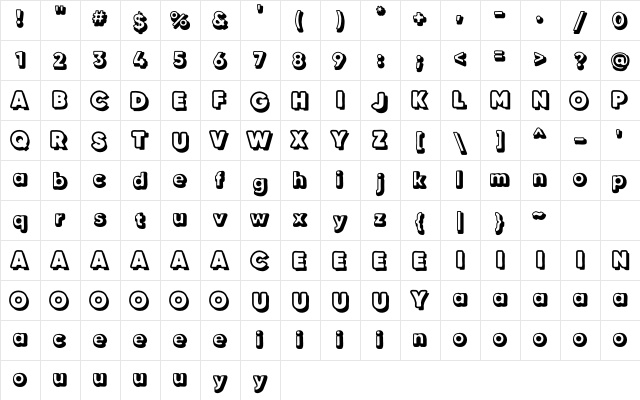
Alchemist Whiteboard Drop Shadow
| Foundry | Digital Alchemist Media Productions |
| Designer | Ardi Alemi |
Design Context for Alchemist Whiteboard Typeface
Alchemist Whiteboard brings ornamental detail and strong personality to headlines and identities, where visual impact matters more than quiet functionality.
Font Pairing: Pair with a clean neutral sans-serif for body copy to let Alchemist Whiteboard's character lead without overwhelming the composition.
Pro Tip: Use Alchemist Whiteboard exclusively at display sizes — it was designed to be seen, not read at length. Let a neutral companion handle body copy.